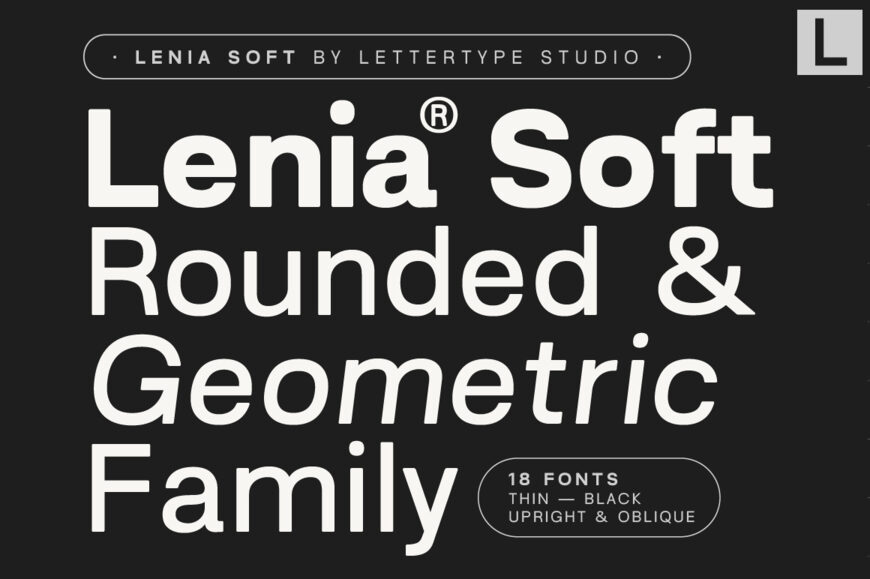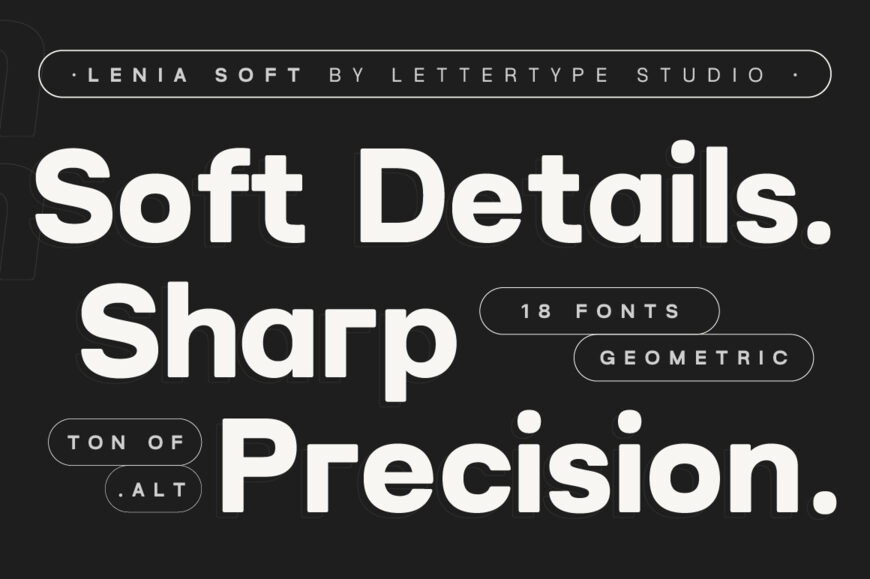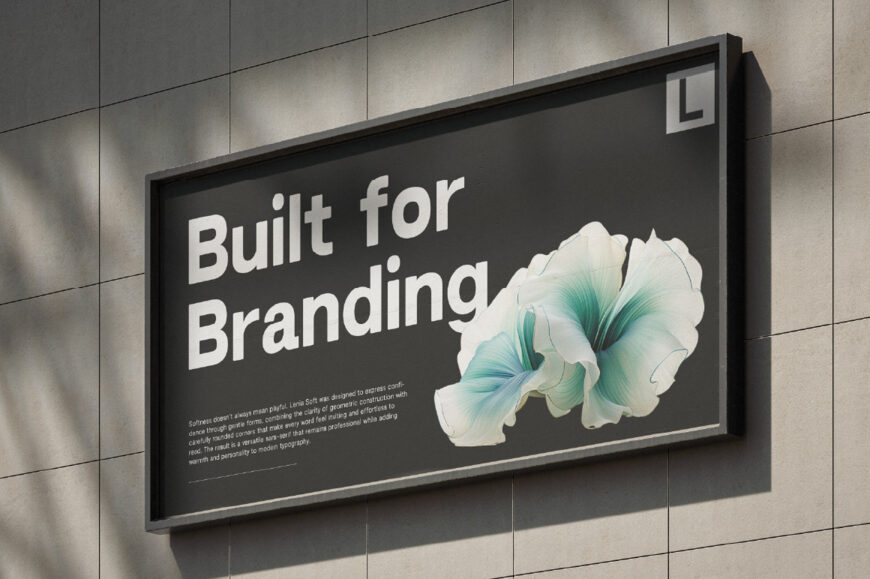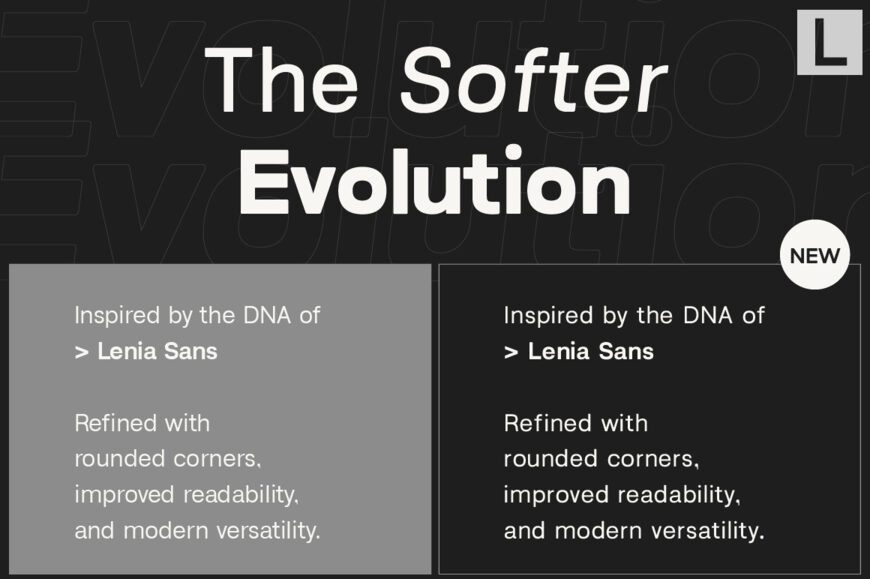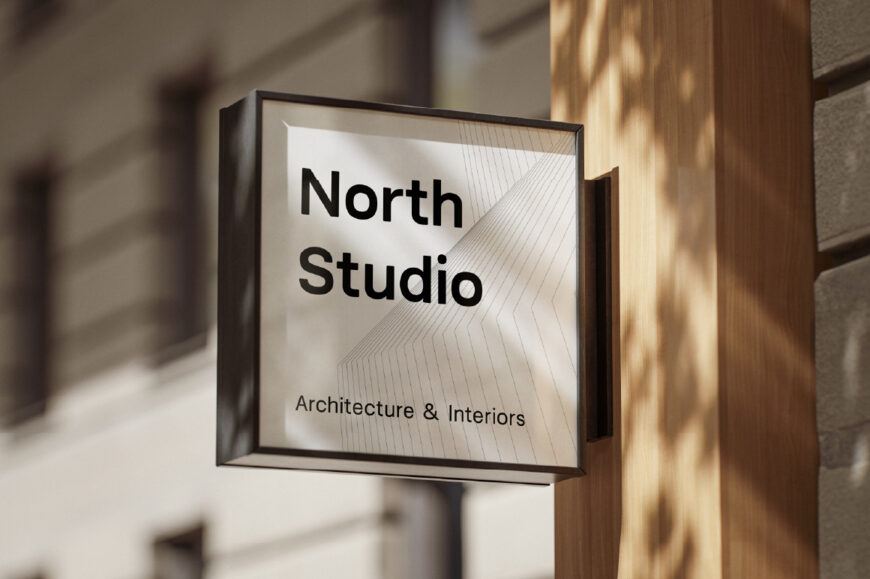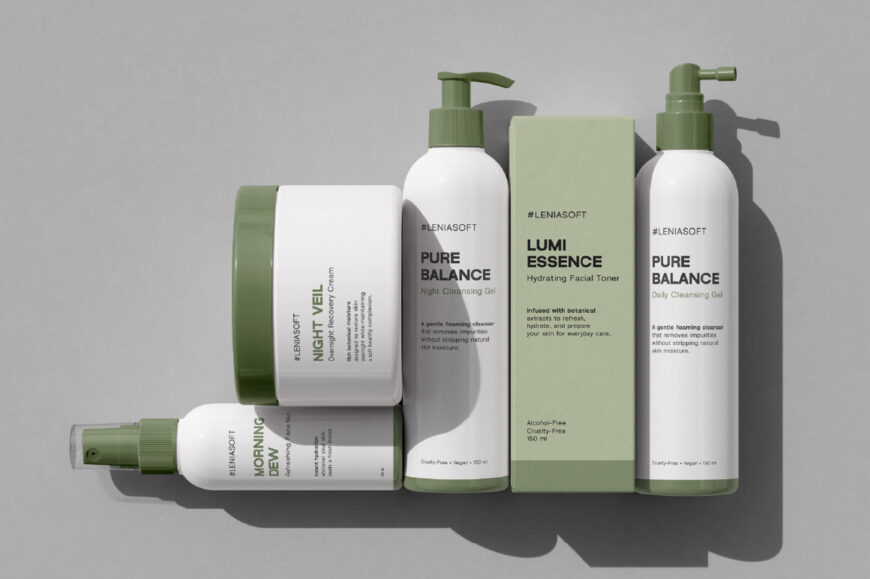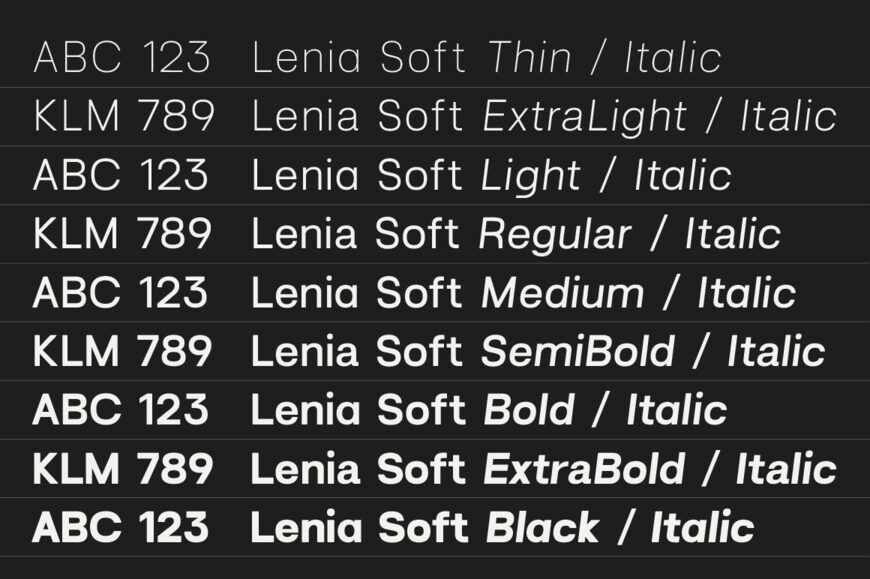
Lenia Soft Font Family
Lenia Soft is a refined evolution of Lenia Sans, blending geometric lines with rounded edges for a warm, inviting feel. Its balanced design maintains a premium aesthetic, making it suitable for professional branding.
With 18 styles and advanced features, Lenia Soft offers flexibility and clarity for various applications, from headlines to interface text, and supports multiple languages (paid version). Its timeless appearance and versatility make it ideal for creating elegant visual identities and modern digital experiences.